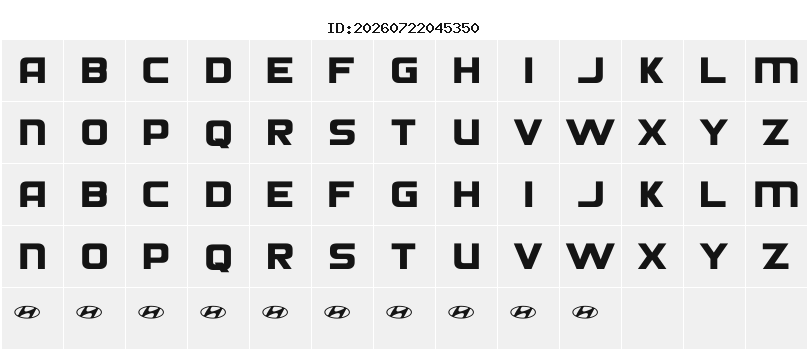
Hyundai Preview
• Font Name: Hyundai
• Font ID: Hyundai Normal
• Full Font Name: Hyundai Normal
• PostScript Name: HyundaiNormal
About Hyundai.ttf
Hyundai.ttf is a modern, elegant sans-serif font designed for ultimate readability and visual harmony. Perfect for branding, headlines, web design, and print materials.